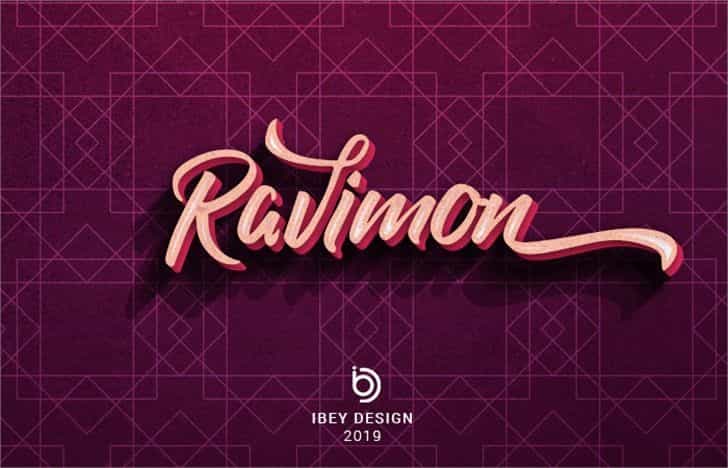
Ravimon Font has a natural looking calligraphy style. This font is perfect for your next design project including Logotype, printed quotes, invitations, cards, product packaging, headers, Letterhead, Poster, Apparel Design, Label, and etc.